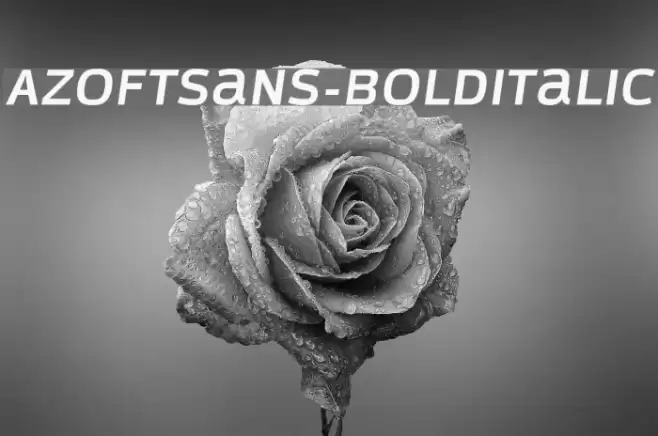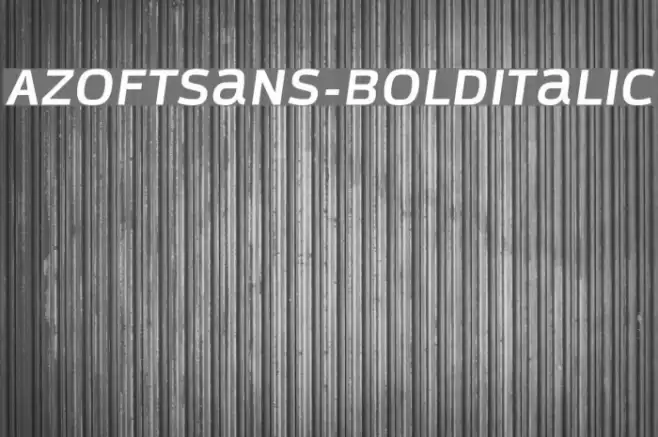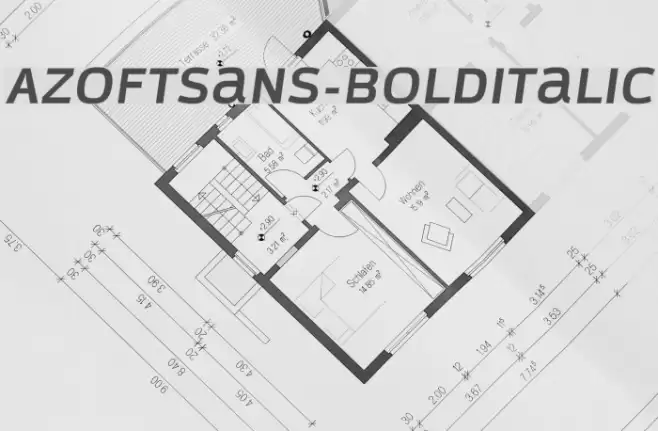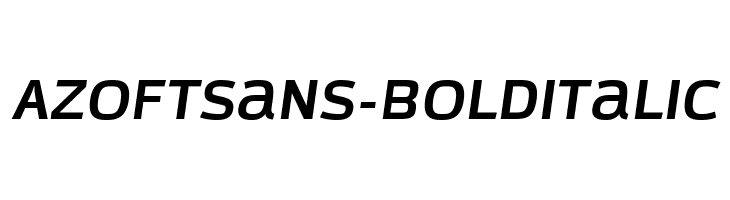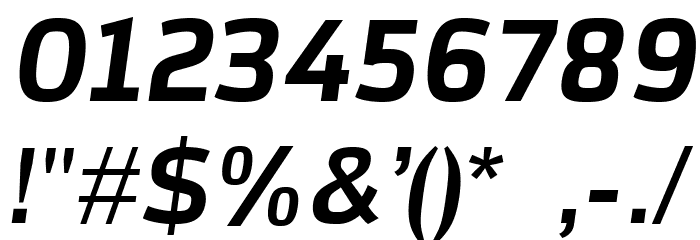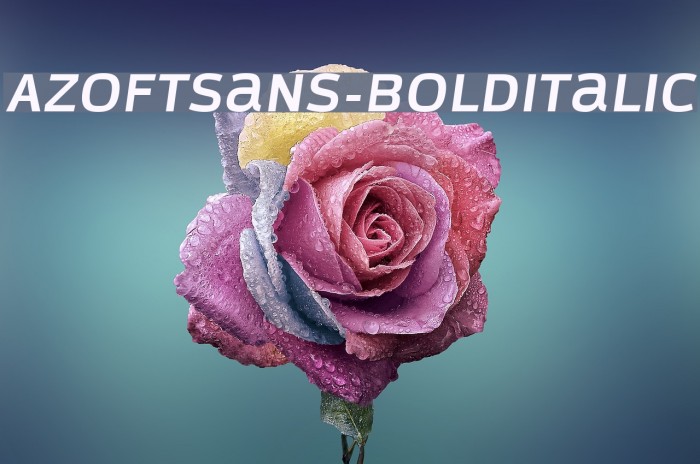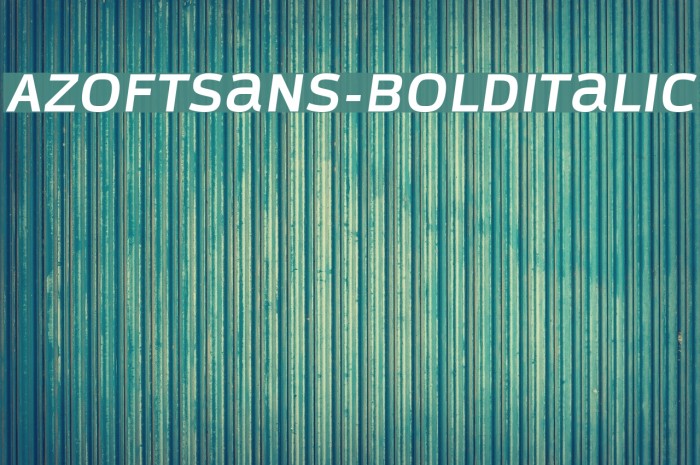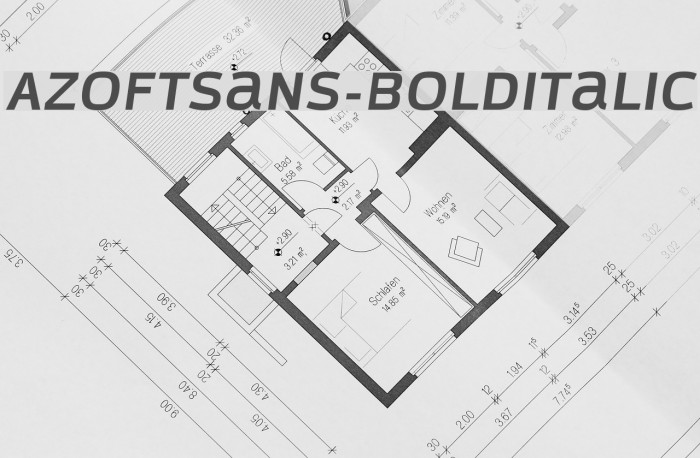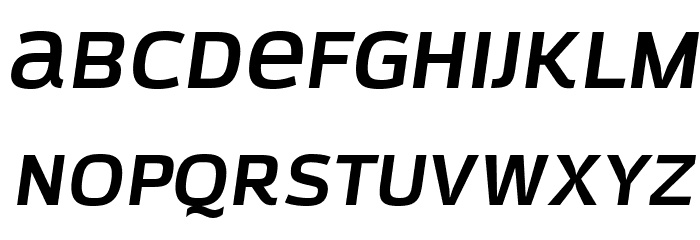
AzoftSans-BoldItalic
This font exhibits a modern and sleek design with a bold and italicized style. The characters are slightly slanted, giving a dynamic and forward-moving appearance. The strokes are consistent and smooth, with a medium contrast between thick and thin lines. The overall look is clean and professional, making it suitable for various applications. The uppercase and lowercase letters maintain a uniform width, contributing to a balanced and harmonious text flow. Numbers and special characters are clearly defined, ensuring readability and versatility in different contexts.
A modern, bold, and italicized font with a sleek and dynamic appearance.
- Proposed Projects: Ideal for branding, advertising, headlines, and digital media projects requiring a contemporary and professional look.
- Use Case: Headlines, Logos, Digital Media